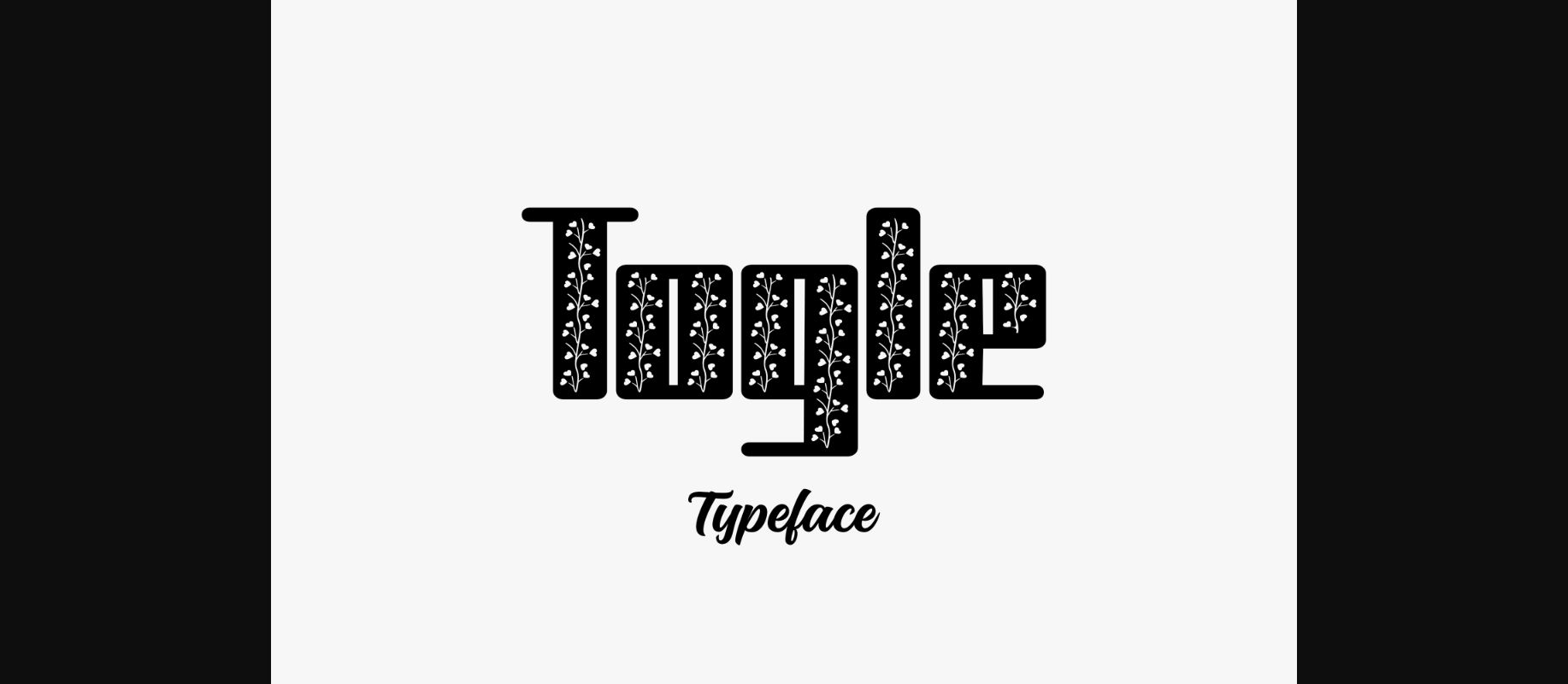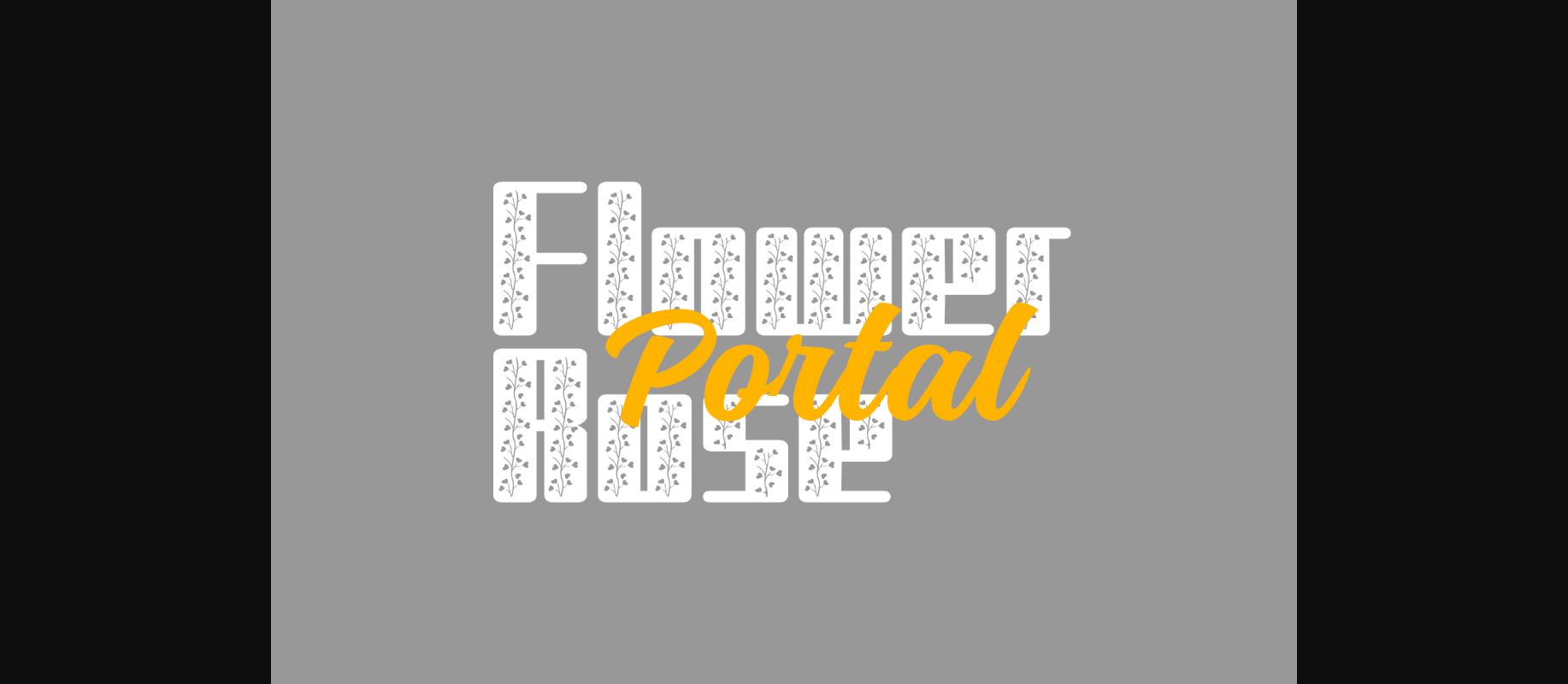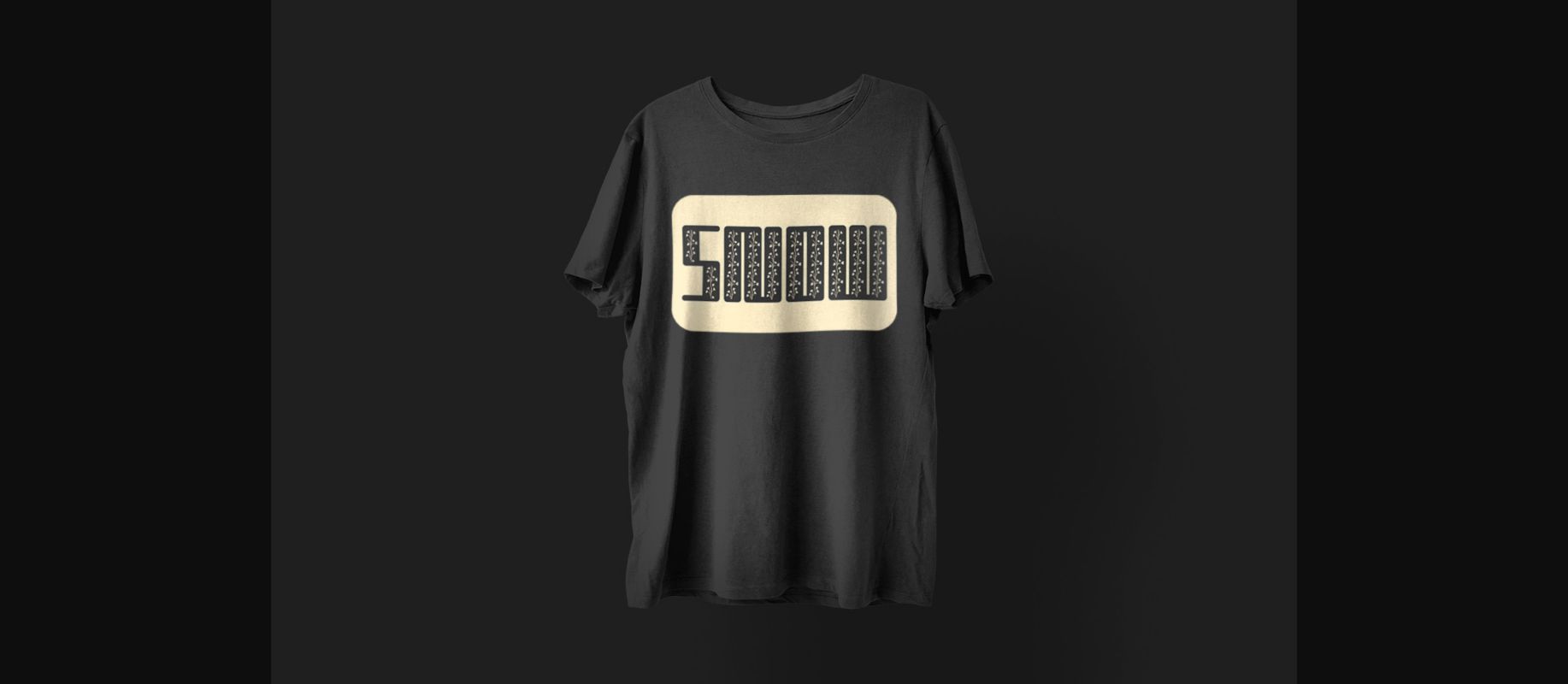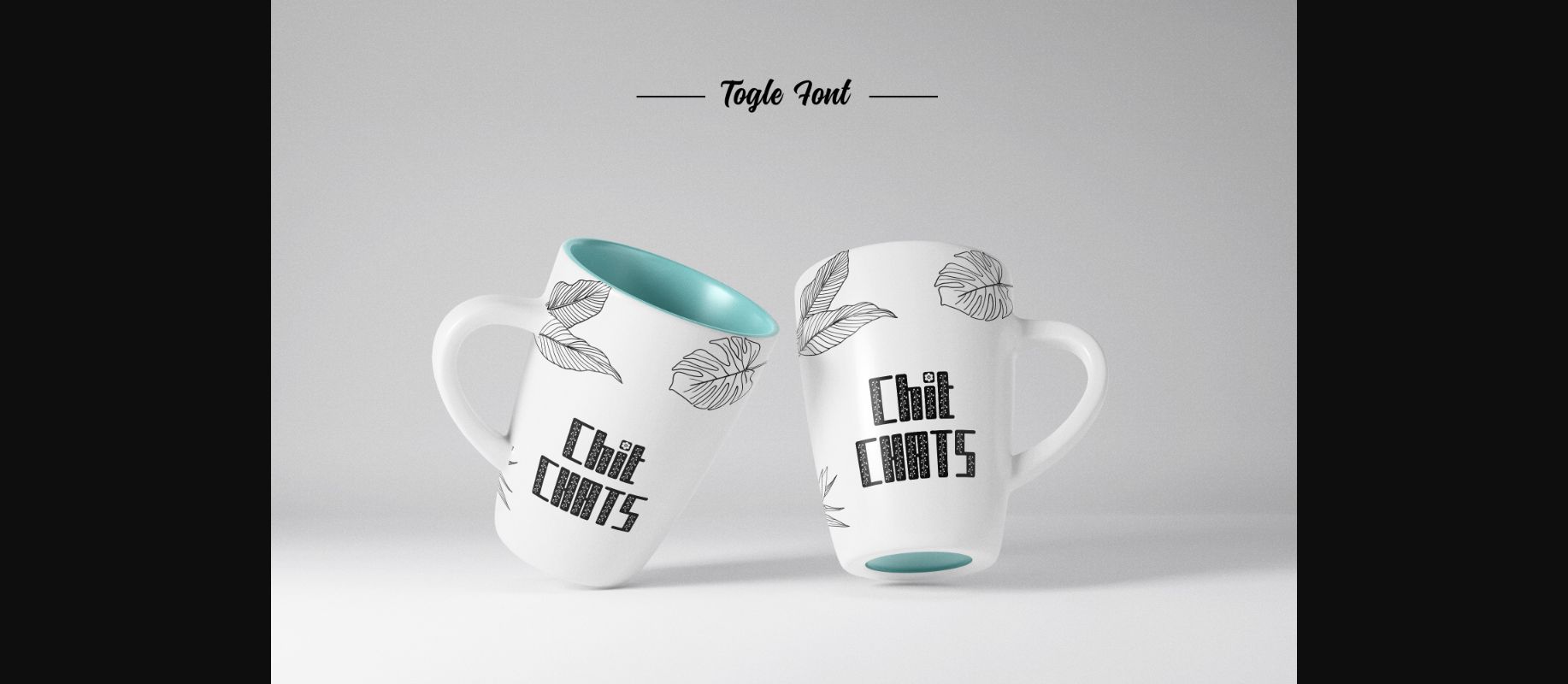
Togle is a cool, detailed and unique decorative font. Fall for its ravishing style and use it to create gorgeous wedding invitations, beautiful stationary art, eye-catching social media posts, and much more!